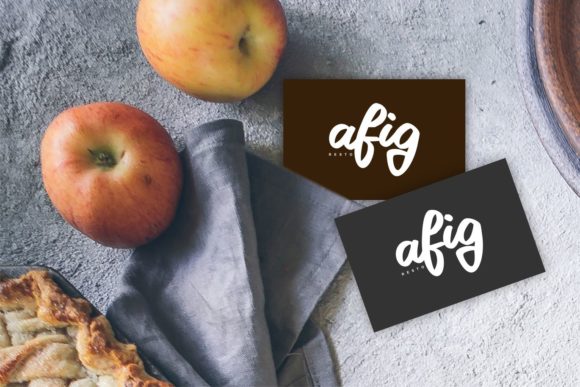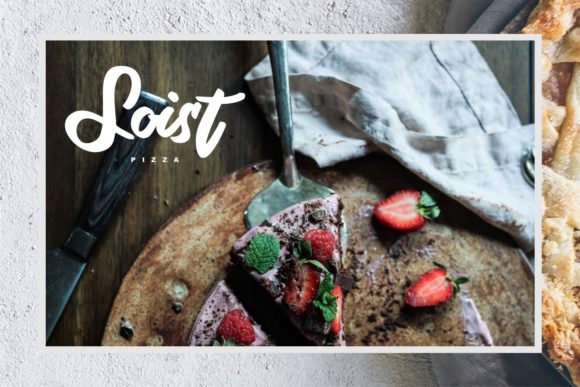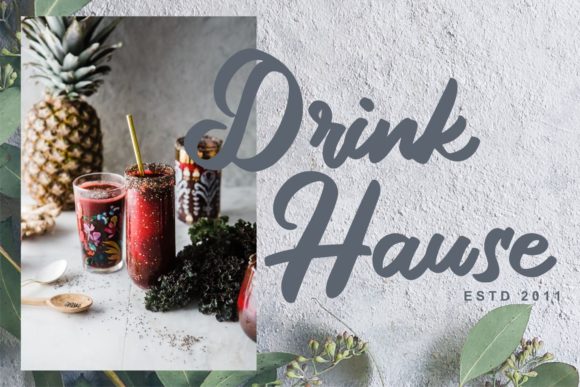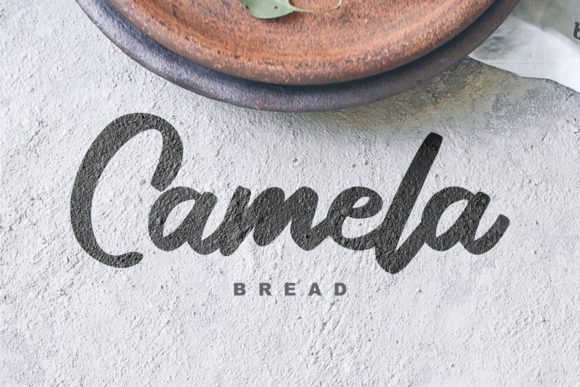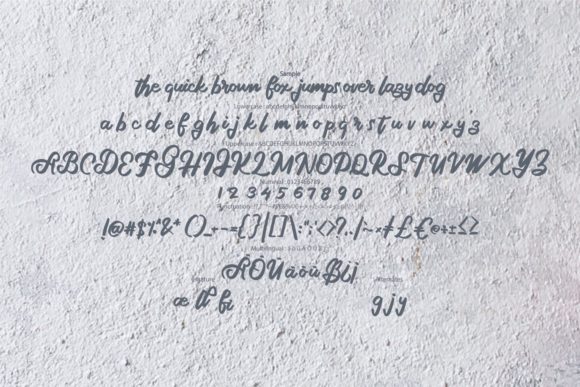
Gargilla Font
About Gargilla Font
Gargilla is an equally elegant and authentic script font. It will look gorgeous on greeting cards, branding materials, business cards, quotes, posters, and much more!